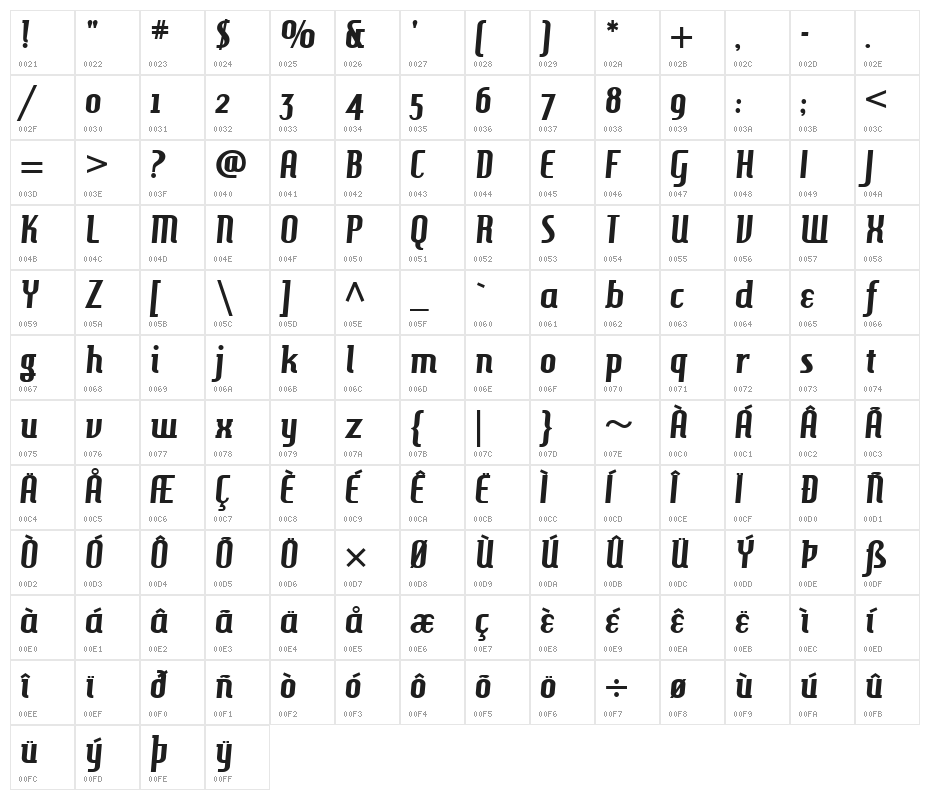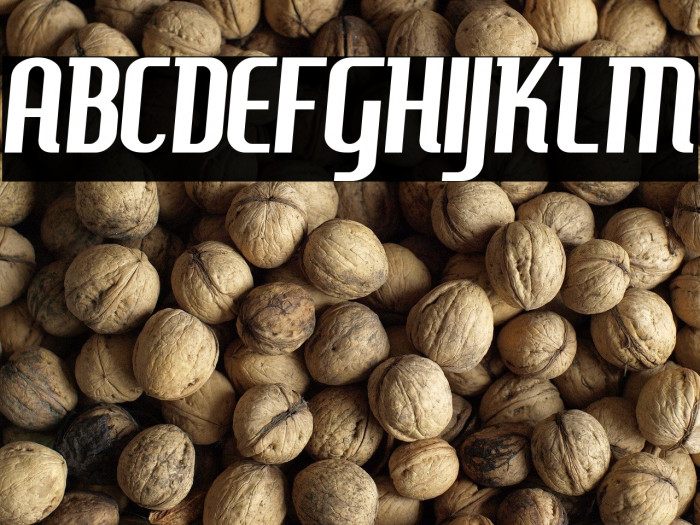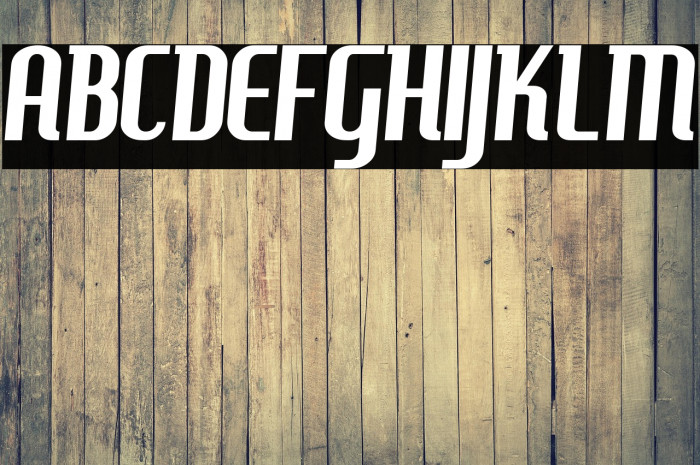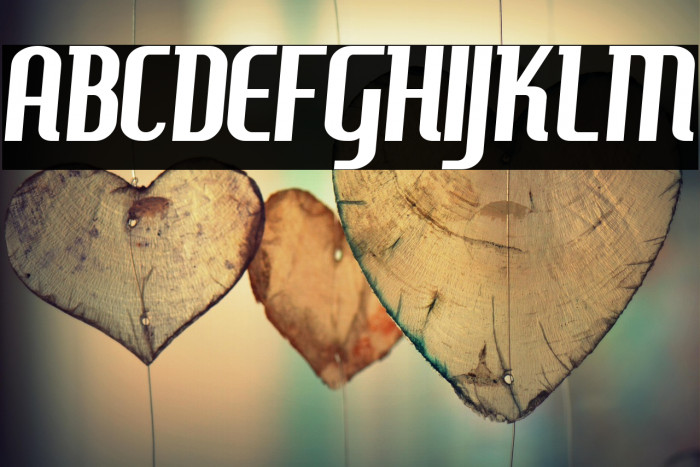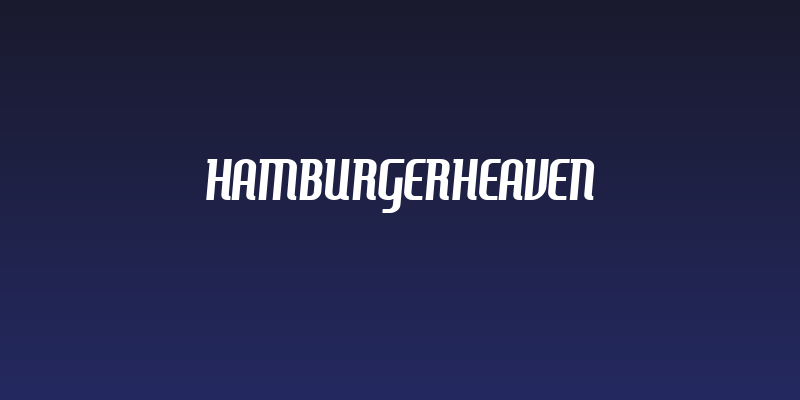
HamburgerHeaven Font
HamburgerHeaven Description
This font features a bold and dynamic style with a slight slant, giving it a sense of movement and energy. The characters are well-defined with a modern flair, characterized by thick strokes and a consistent weight throughout. The uppercase letters are tall and commanding, while the lowercase letters maintain a similar boldness, ensuring readability. The numerals are distinct and align well with the overall design, making them suitable for various applications. Special characters are included, maintaining the font's cohesive style. This font's unique design makes it ideal for projects that require a strong visual impact.
Proposed ProjectsIdeal for branding, advertising, posters, and headlines where a bold statement is needed.